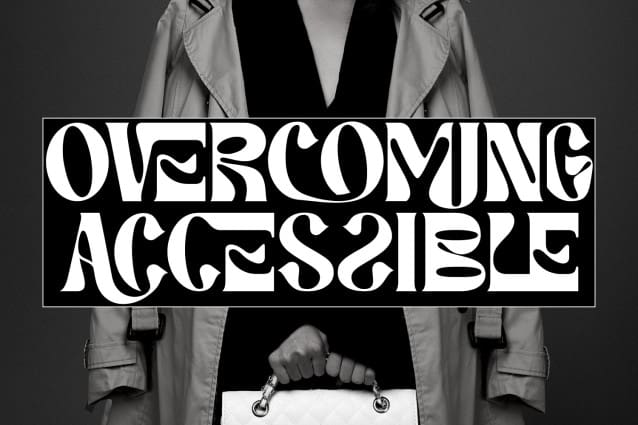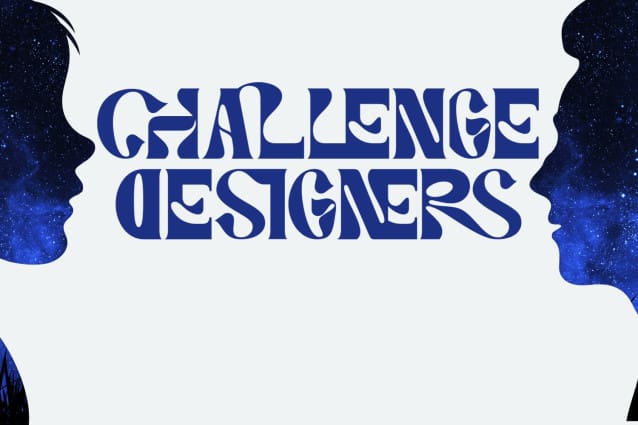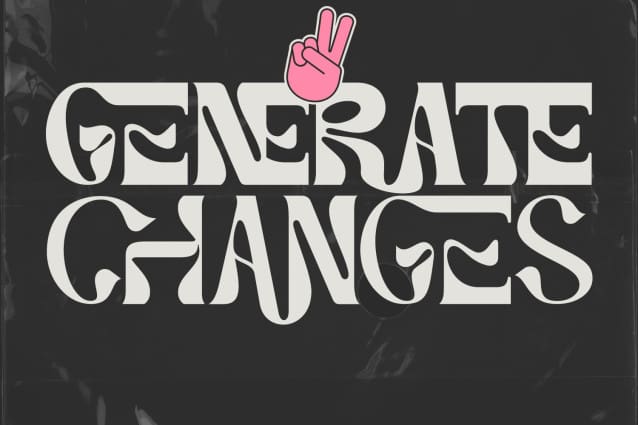
Generate Changes Font
Generate Changes Font – The Funky Retro Font with Dynamic Flair. Get ready to transport your projects back to the rad era of the 1980s with this font, a font that encapsulates the funky, retro style of the era while adding a contemporary twist. Whether you’re designing a groovy poster, an album cover, or revamping your branding. This font is a visual trip back in time, evoking the free-spirited, colorful, and mind-expanding nature of the era.
Generate Changes was built with OpenType features and includes 100 ligatures, alternate, numbers, punctuation, and it also supports other languages.
AC AD AL AN AR AS AT AU AV BE CA CE CH CO CT DE DI EA EC ED EE EL EM EN EP ER ES ET FE FO FR GE HA HE HI HO IE IC IL IN IO IR IS IT JU KE LA LE LI LL LO LY MA ME MI NC ND NE NG NO NT NS OC OF OM ON OO OP OR OT OU OW PA PR RA RD RE RI RO RS RT SE SH SI SO SS ST TA TE TH TI TO TR TT UM UN UR VE WI WO